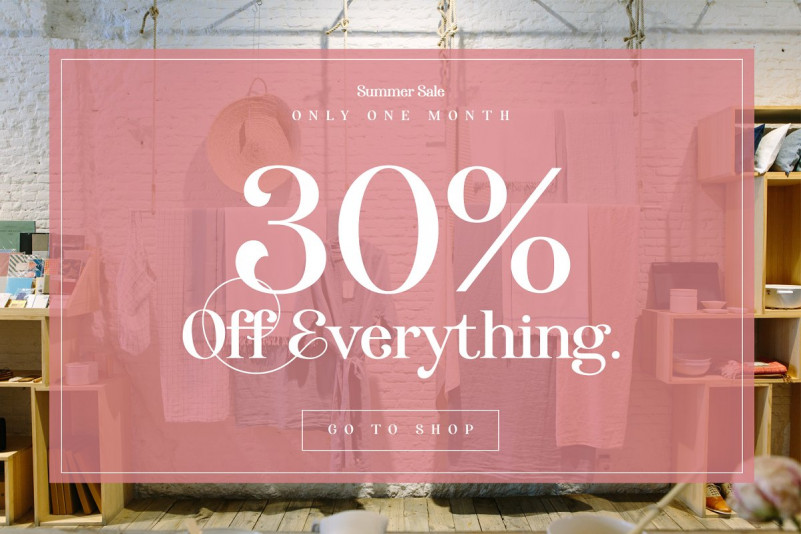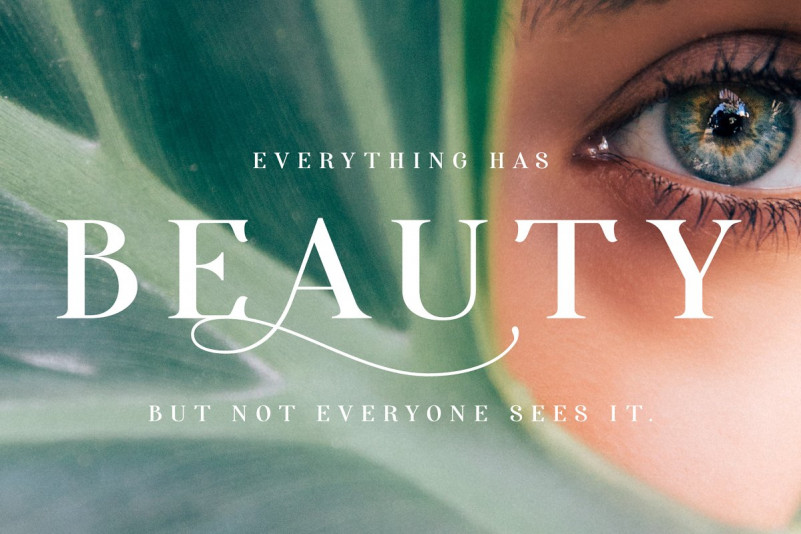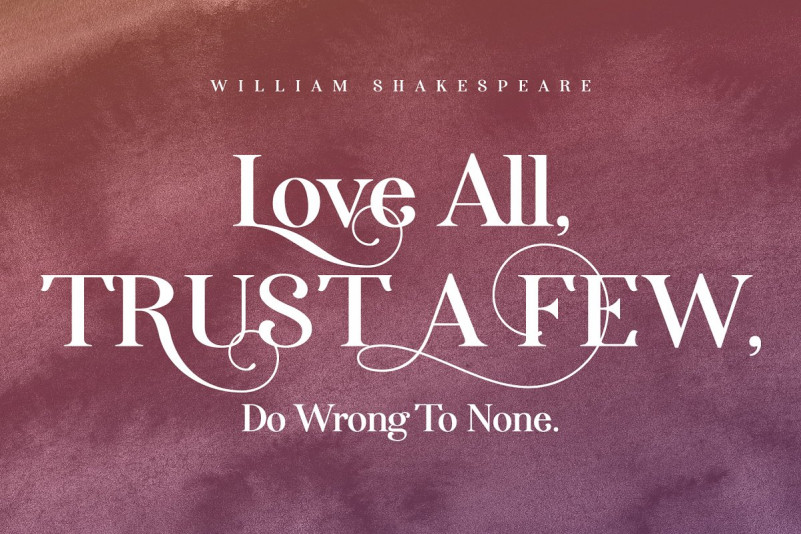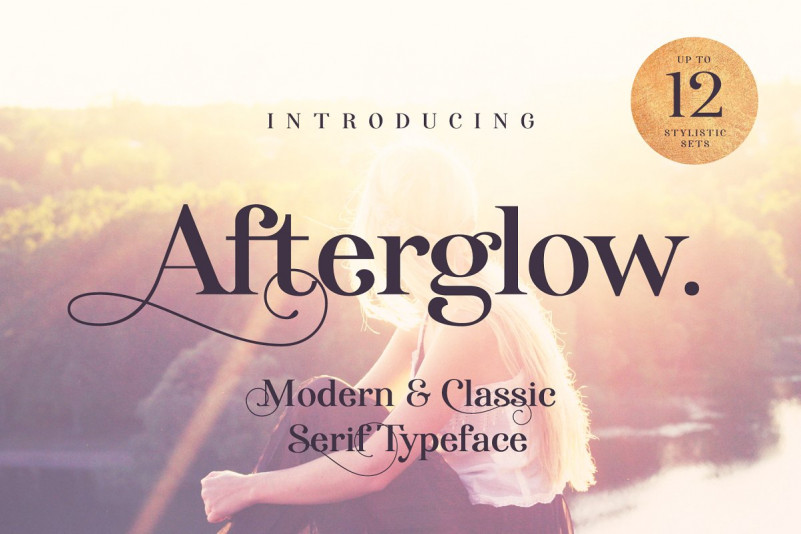
Afterglow Typeface
Hello Everyone! This is a classic and elegant serif with a bunch of alternates, that will make your presentation or logo even more stunning and stand out! Introducing Afterglow Serif Font. Afterglow Typeface – Elegant and so stylish serif typeface full of contrast lines, a lot of Stylistic Alternates with thin swashes. Some letters has up to 12 of them. Use only capitals for headers or quotes, it looks strong and refined, or use Caps with lowercase for block texts, or subheaders. Design your art- or beauty blogs, t-shirts or websites, posters, magazines or cards, and logo’s of course. You will return to this font again and again.